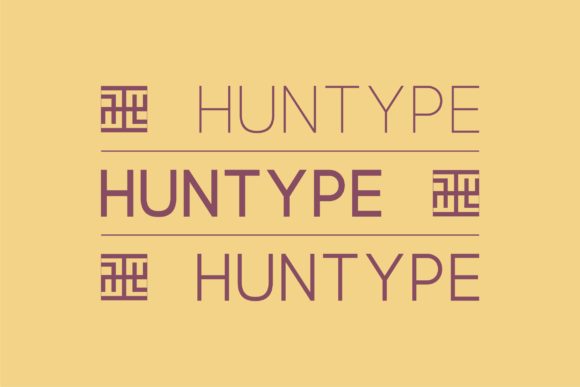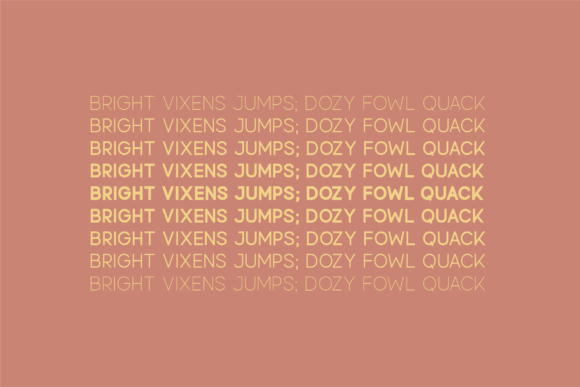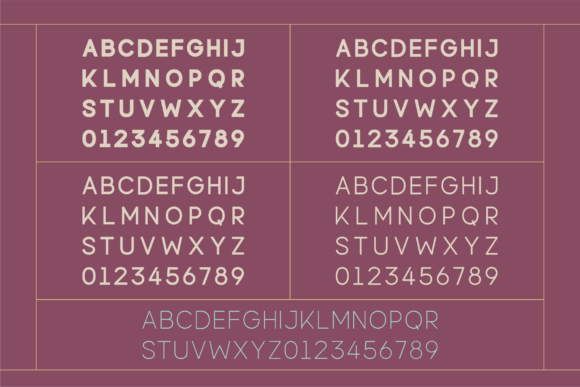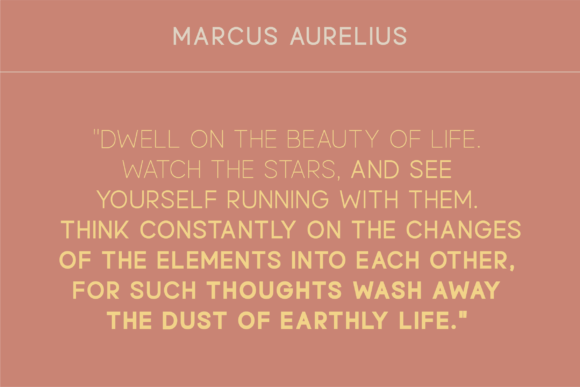
Designing with Flair: Discover the Admiration Font
Have you ever stared at a blank page, trying to conjure up the perfect font to capture the essence of your design project? The struggle is real, but with the right tool, creativity can flow freely. That’s where the Admiration Family comes in – a modern, elegant font that’s about to revolutionize your design process.
| 👤 Author | Huntype |
This versatile font family offers five weights, from Thin to Black, making it perfect for a wide range of applications, from branding and headlines to body text. Its sleek, contemporary style ensures readability without sacrificing sophistication, giving your designs a touch of refinement and class. Whether you’re a seasoned designer or just starting out, the Admiration Font is a valuable addition to your toolkit, elevating your designs with its meticulously crafted aesthetics.
Admiration Font Key Features
- Font Family: Admiration, Admiration Italic, Admiration Bold, Admiration Bold Italic
- Unique Characteristics: Admiration Font features elegant, flowing lines and a classic feel, making it suitable for formal and professional applications
Designer Review: Admiration Font
As a designer, I was initially drawn to the Admiration Font due to its elegant and sophisticated appearance. ✨ The font’s subtle flair and curves give it a sense of refinement that makes it perfect for high-end branding and luxury products.
One of the standout features of Admiration is its excellent legibility, even at small font sizes. ✨ This makes it an excellent choice for body text, where readability is crucial. Additionally, the font’s versatility allows it to be used in a wide range of contexts, from print to digital media.
- ⚠️ The font’s subtlety can sometimes make it difficult to read at a glance, particularly for those with vision impairments.
- ⚠️ The font’s elegance comes at the cost of expressiveness, making it less suitable for projects that require a bold or playful tone.
- ⚠️ The font’s compatibility with certain operating systems and browsers may be limited, which could lead to formatting issues.
Overall, I would recommend the Admiration Font for designers working on high-end or luxury projects where a sophisticated and elegant look is required. However, it may not be the best choice for projects that require a more bold or expressive tone.
Use the Admiration Font to add a touch of elegance and sophistication to your designs. Experiment with different font sizes and styles to create visual interest.
Use the font in combination with other design elements, such as images and graphics, to create a cohesive and engaging visual identity.
The Admiration Font is ideal for:
Photography and fine art projects